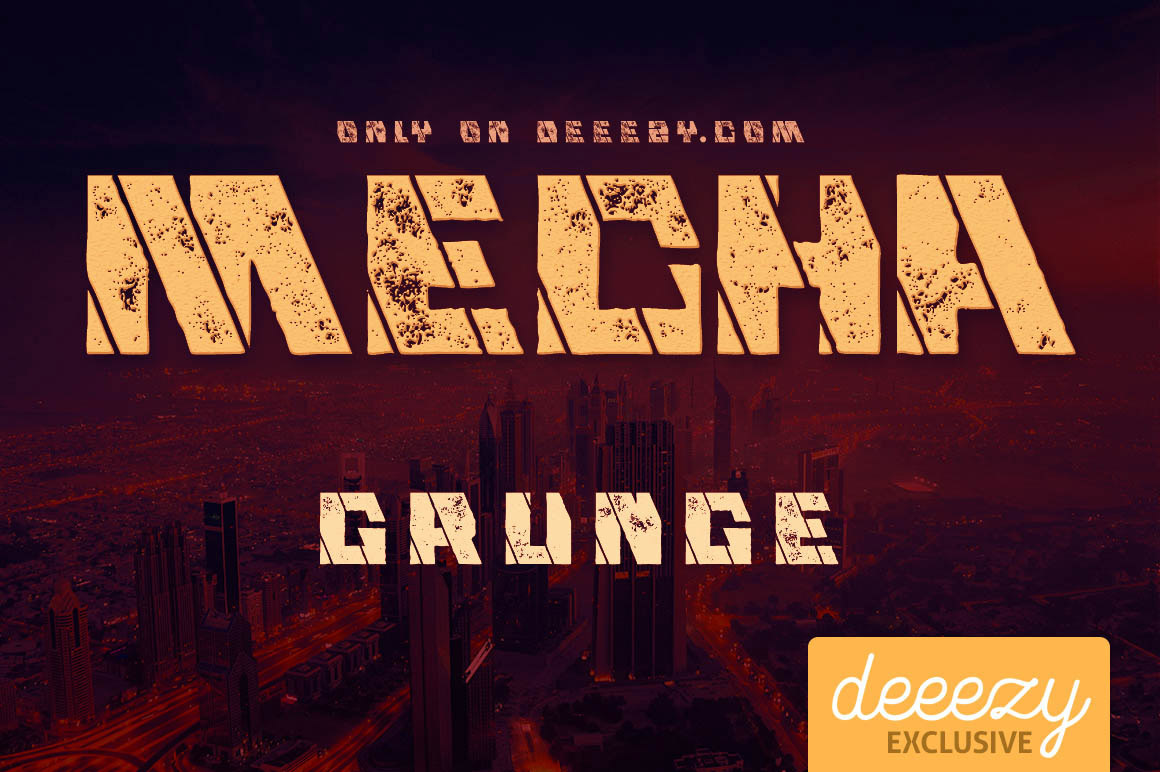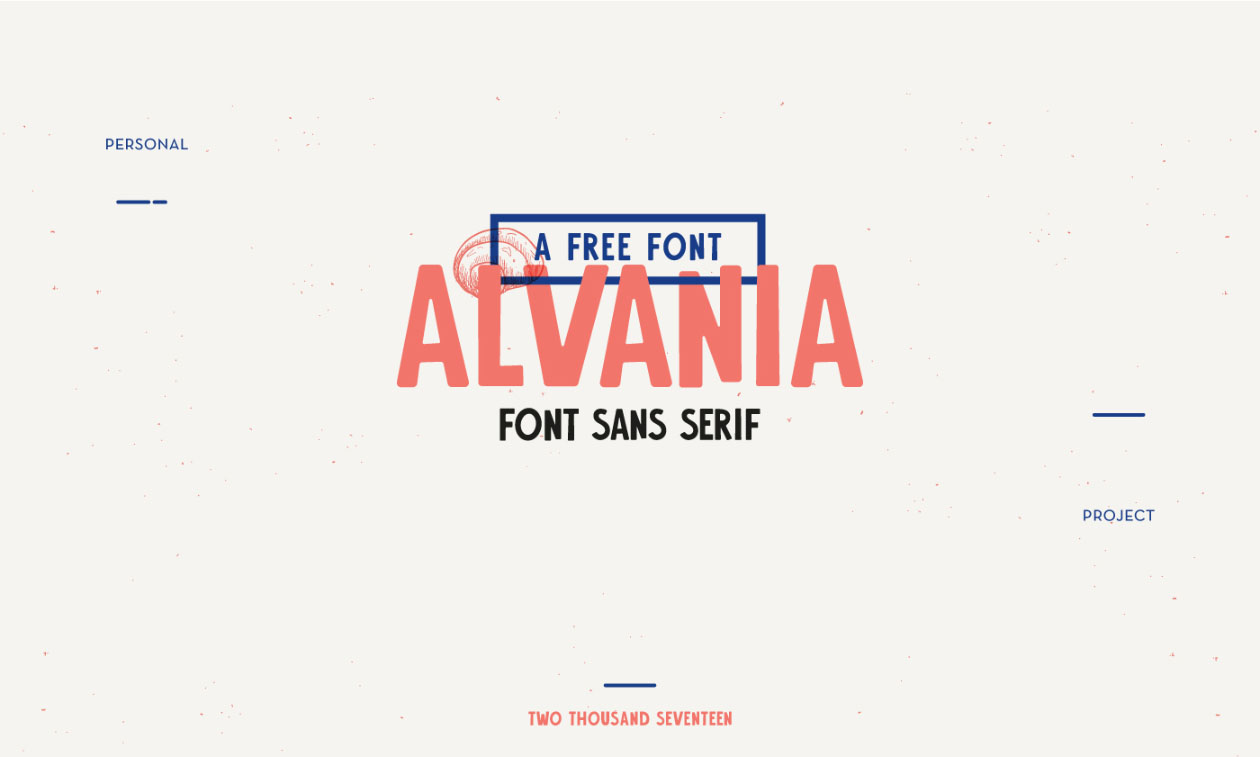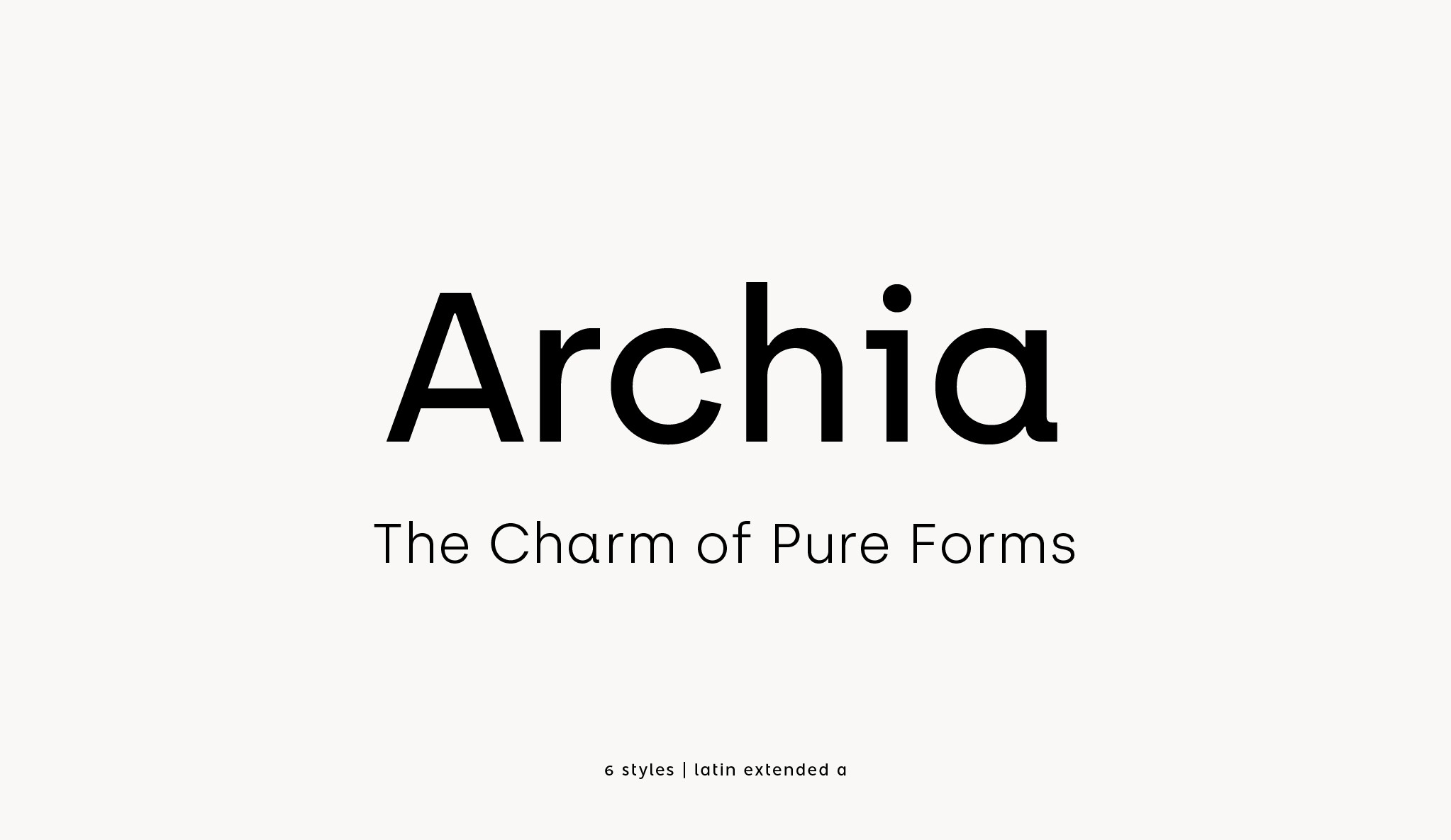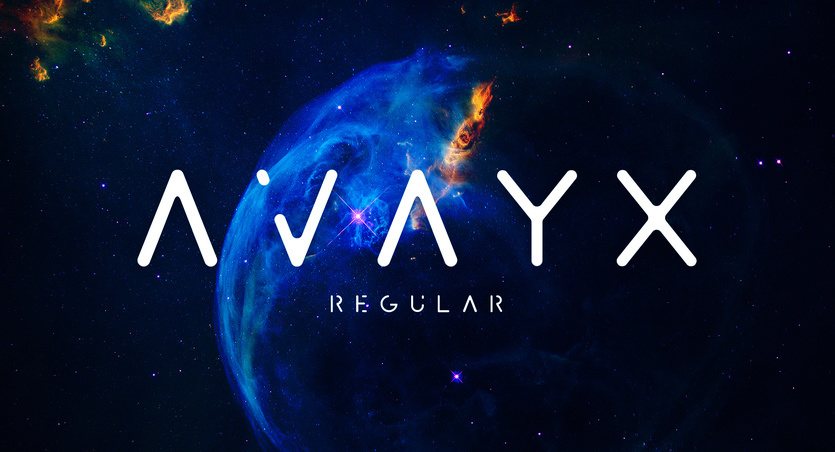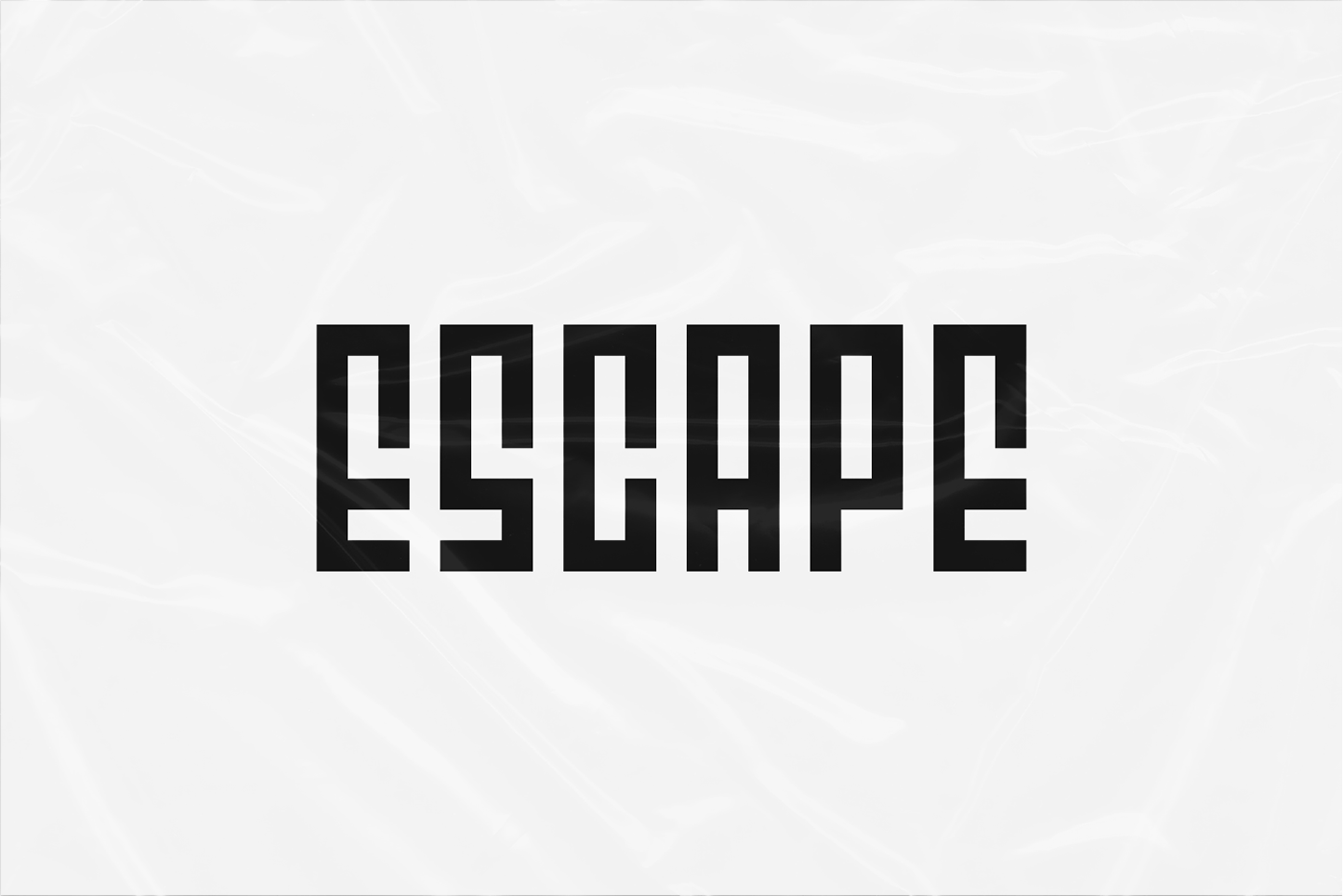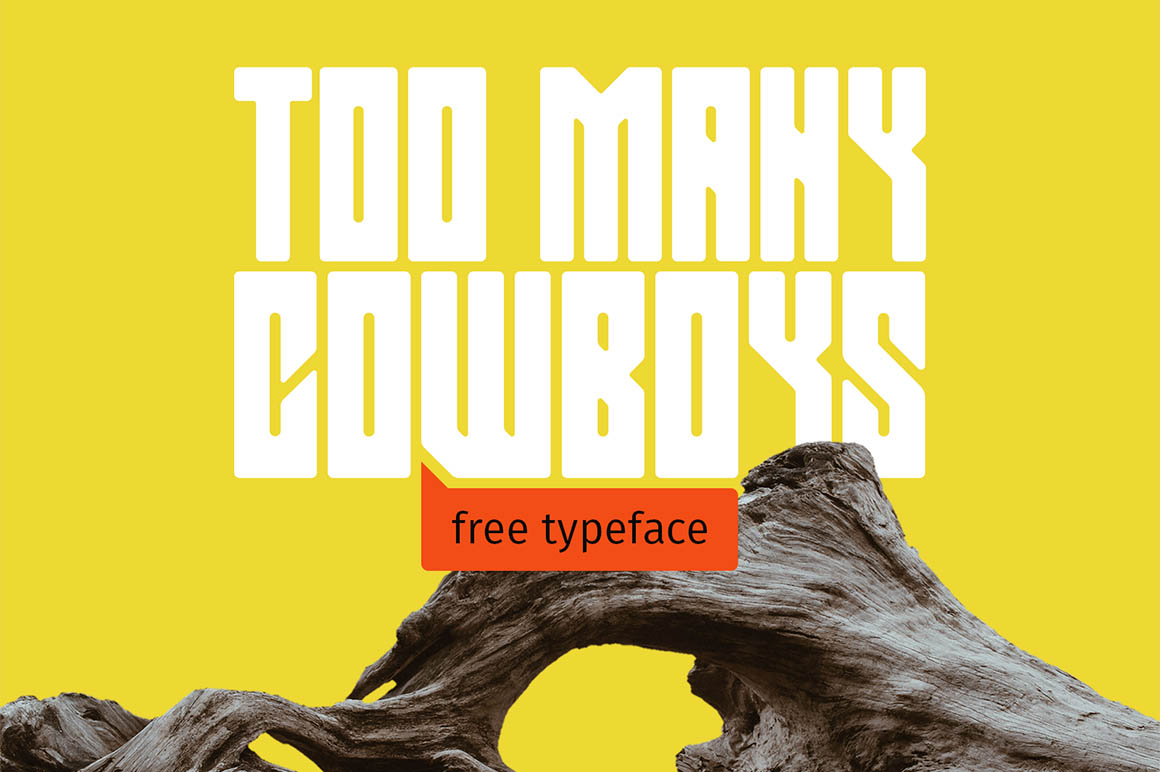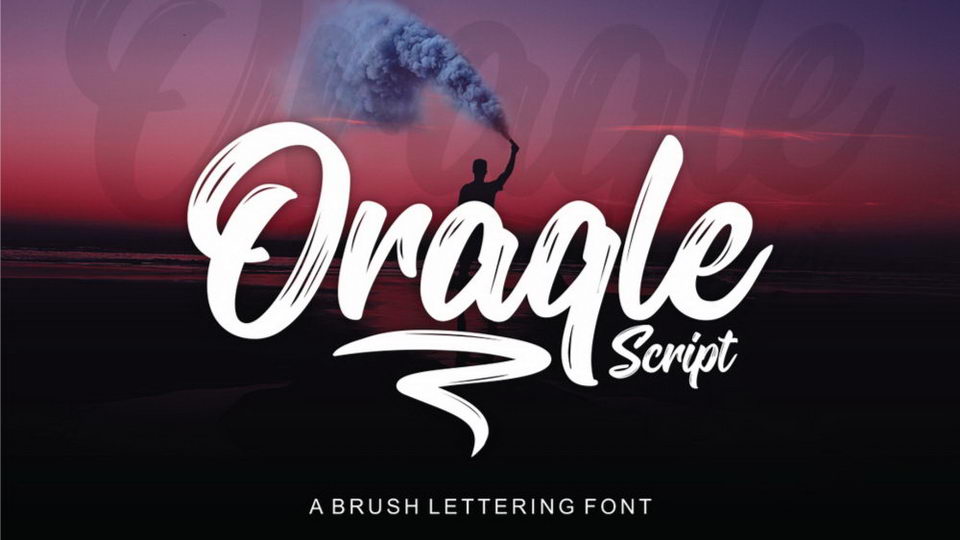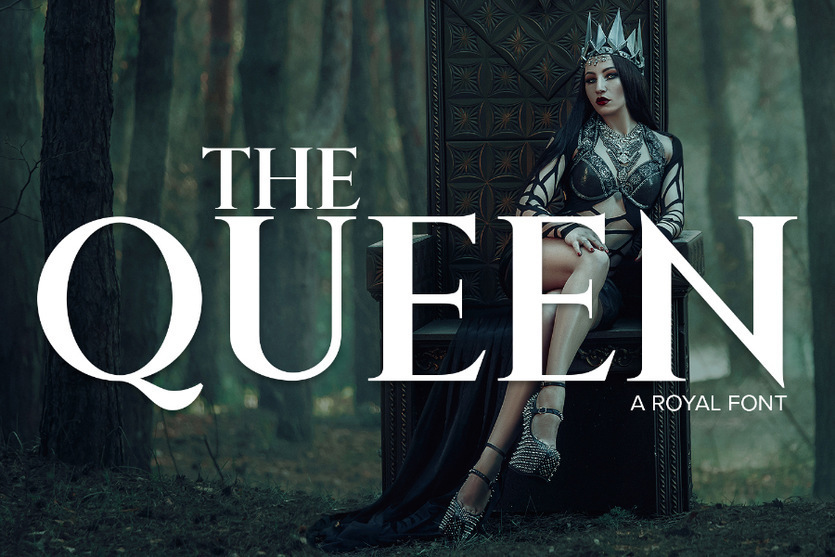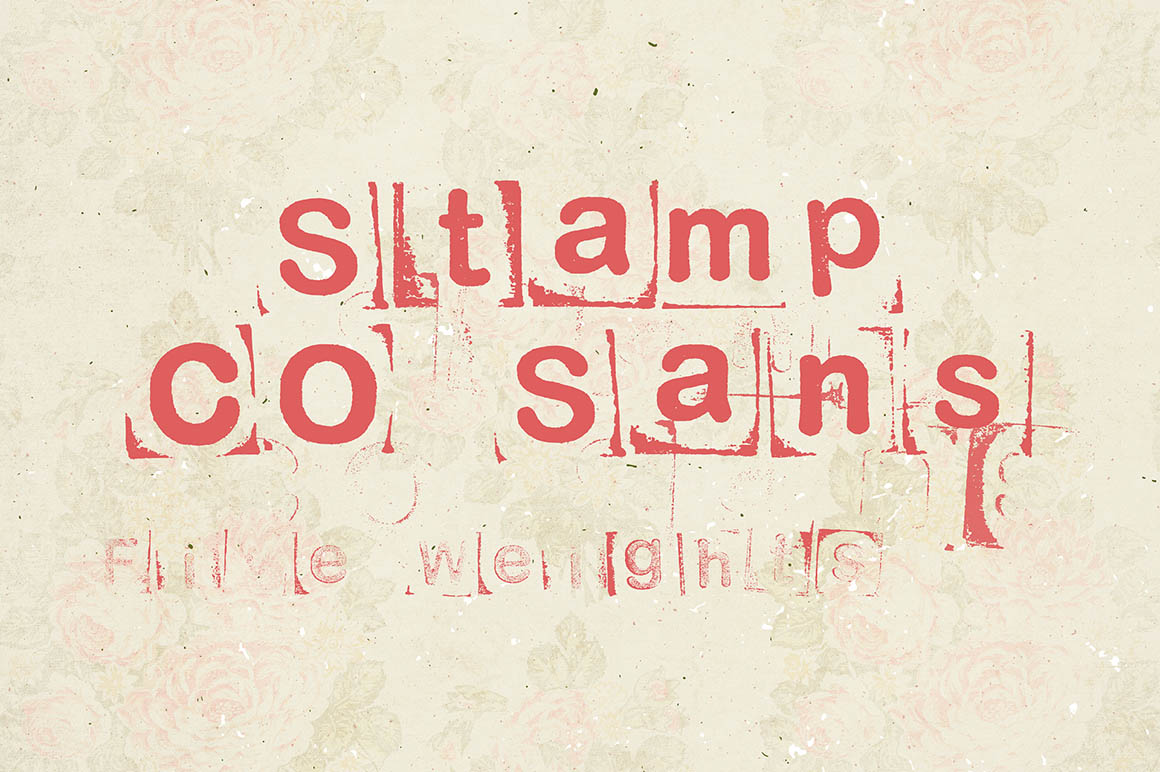
New stylish fonts included handwritten, sans serif typefaces and script fonts ideal for signature logos, t-shirts, brochure, magazines, social media, greeting cards, invitations, weddings, headers and much more!
Matamata – Free Geometric Sans Serif Typeface
Crafter – Free Vintage Font
Robika – Free Font
Downtown Font
Avayx Free Font
Vision Free Font Family
Camellion Brush Script Typeface
Alvania Free Sans Serif Font
Alexana Typeface
Maleah Free Sans Serif Font
Free Ireene Serif Font
Stamp CO Sans – Free Font
Too Many Cowboys – Free Font
Oraqle Script
Rustico – Free Bold Brush Font
The Queen Free Serif Font
Sofeeda Free Font
Sugar & Vinegar Free Typeface
Archia Free Font (Regular)
Milk Free Font
Escape
Lysis Free Font
Mecha Grunge Font
Verua Typeface
The Shark Fin Typo Free Font
Noway Round Font (Regular & Italic)
Sac Prairie | Free Serif Typeface